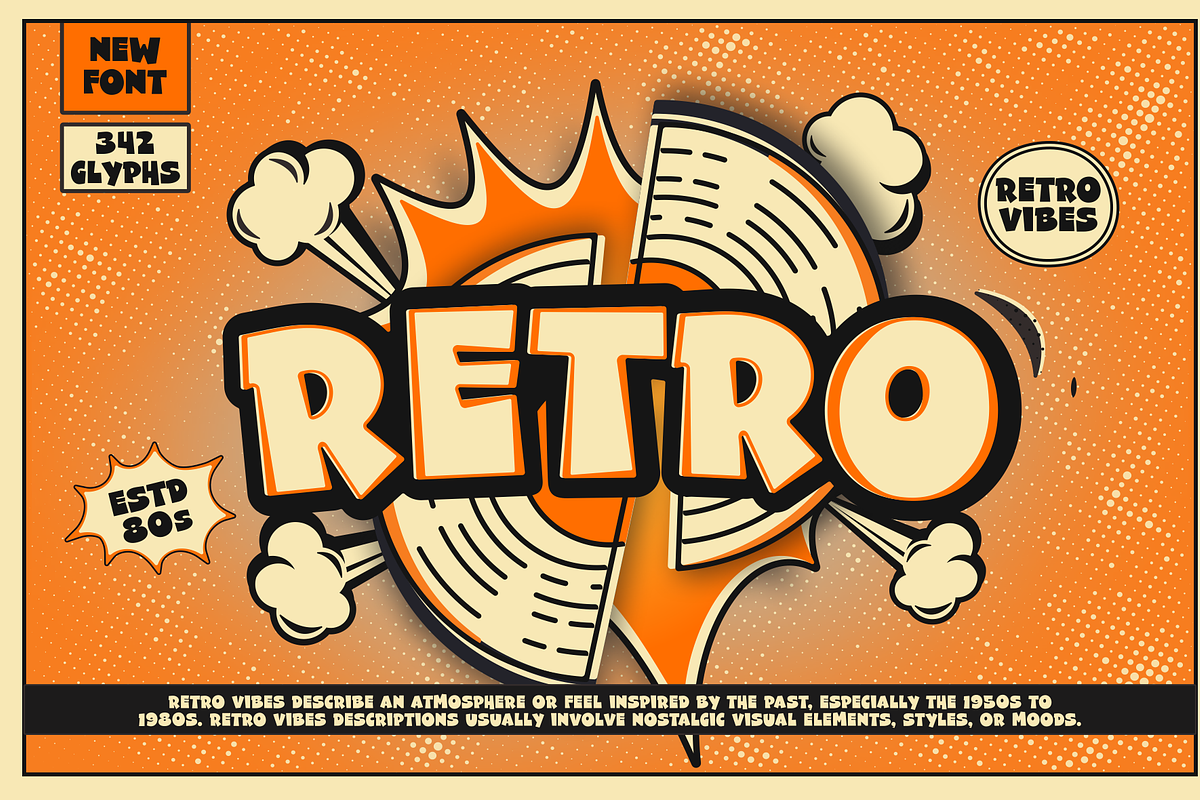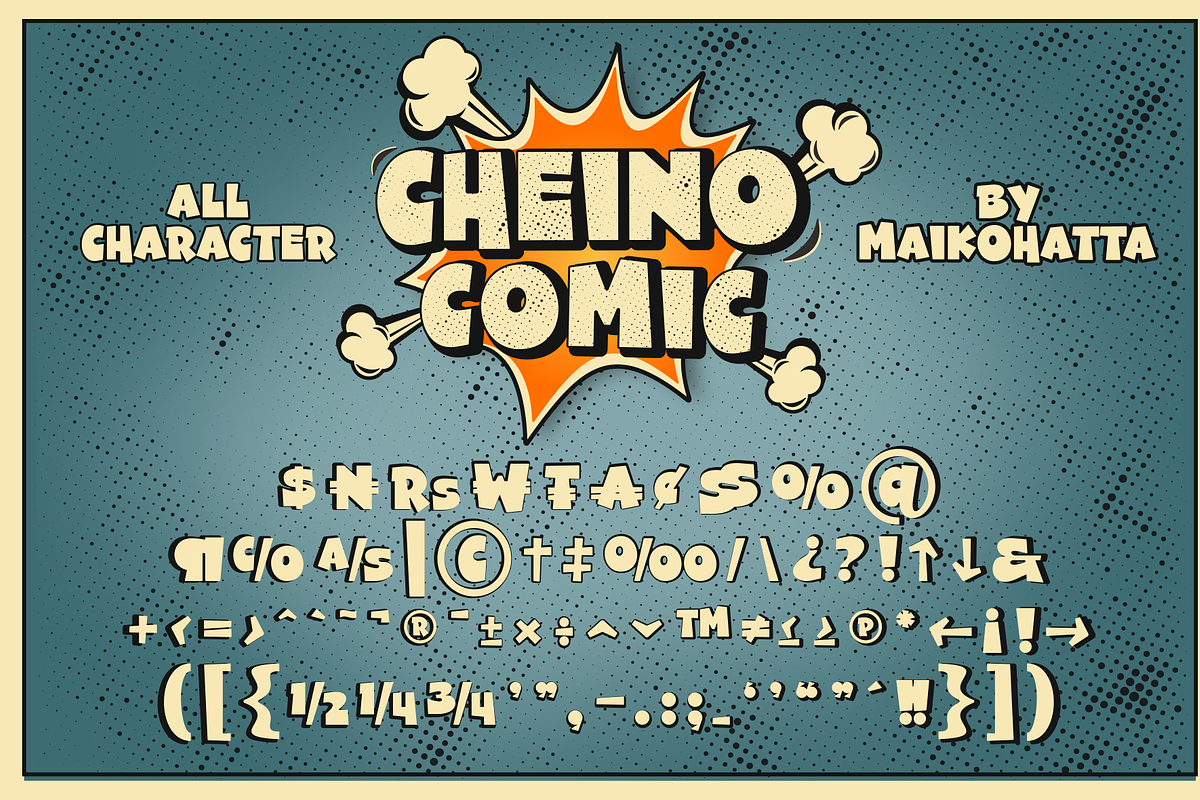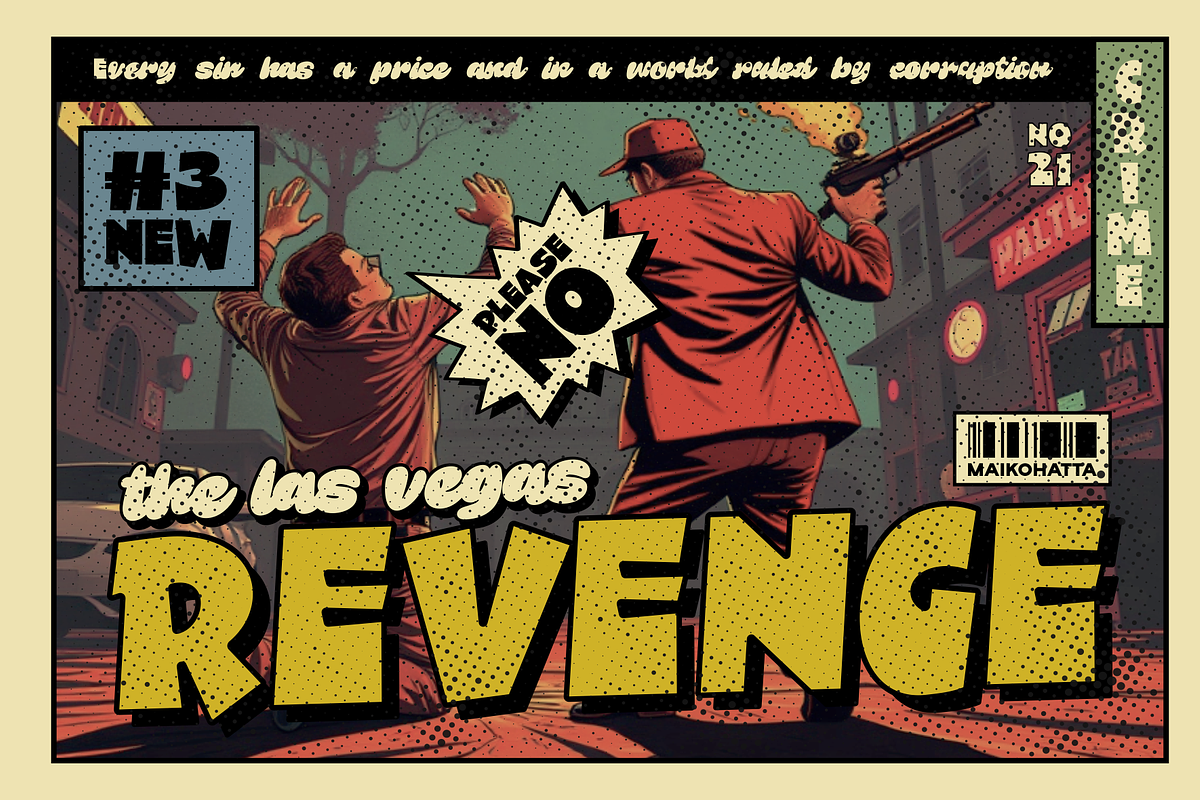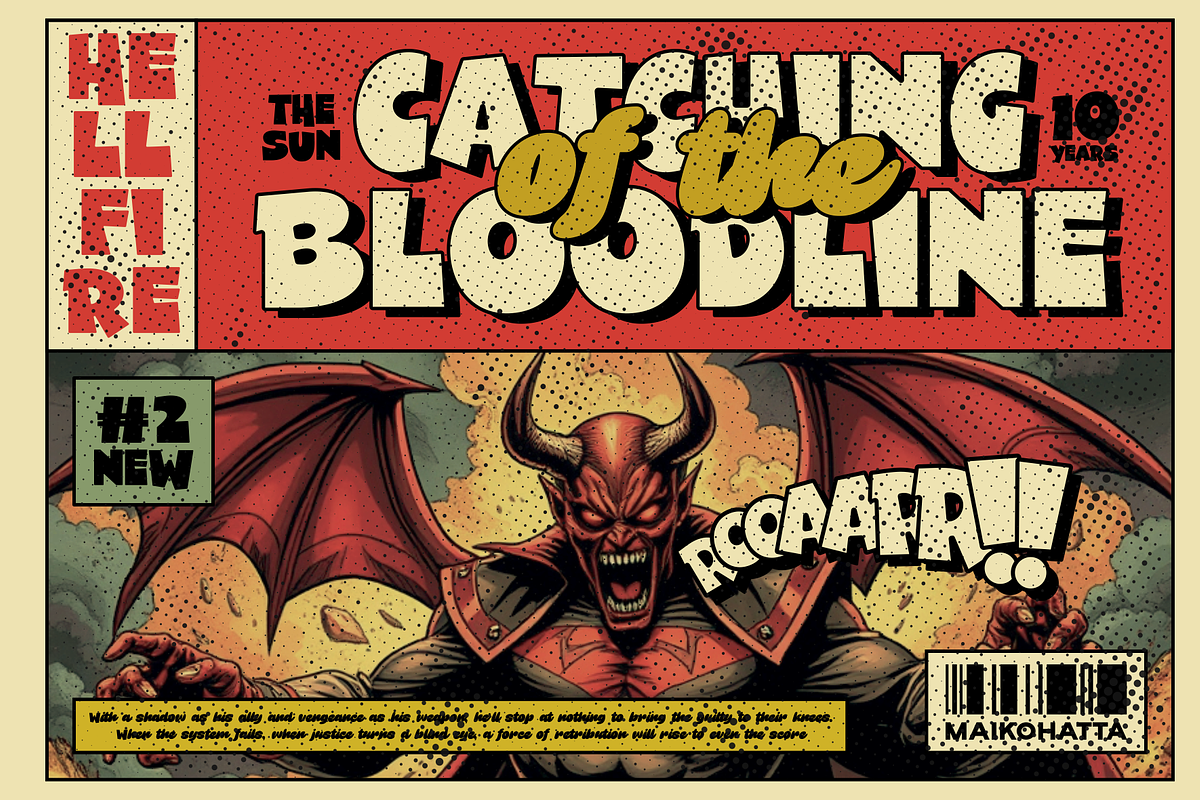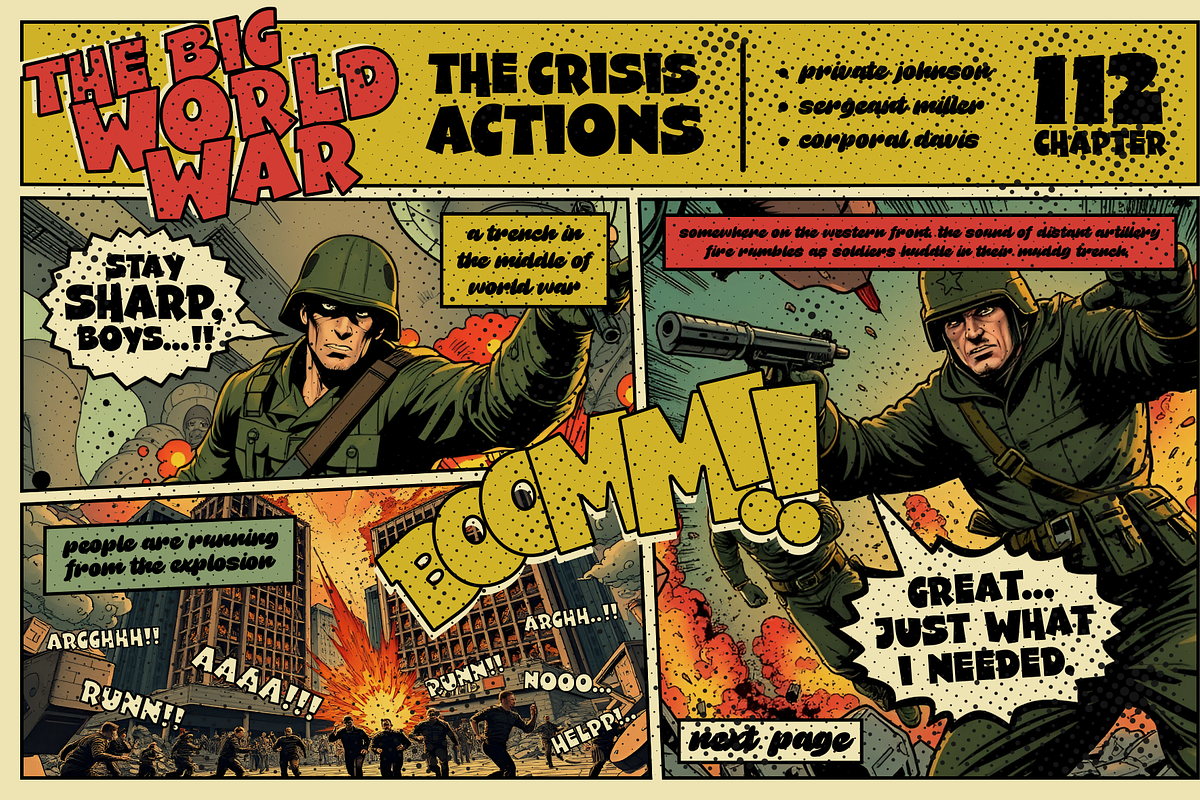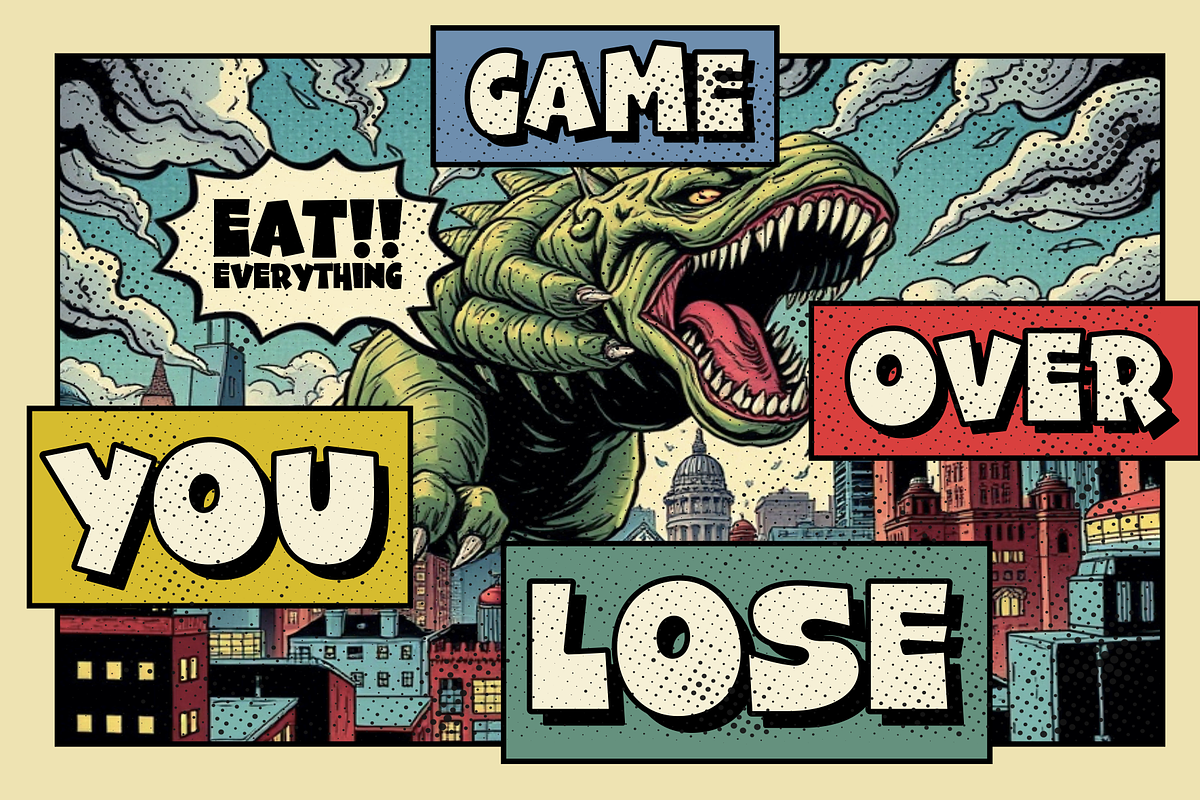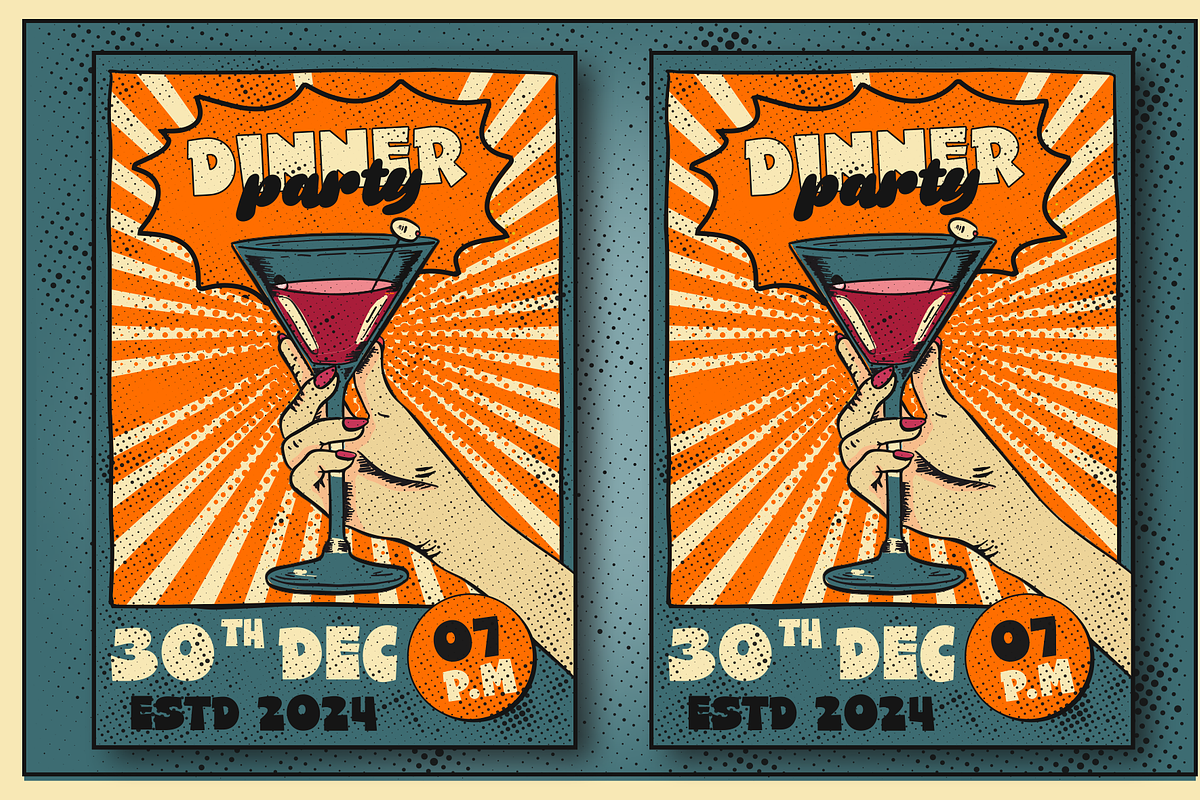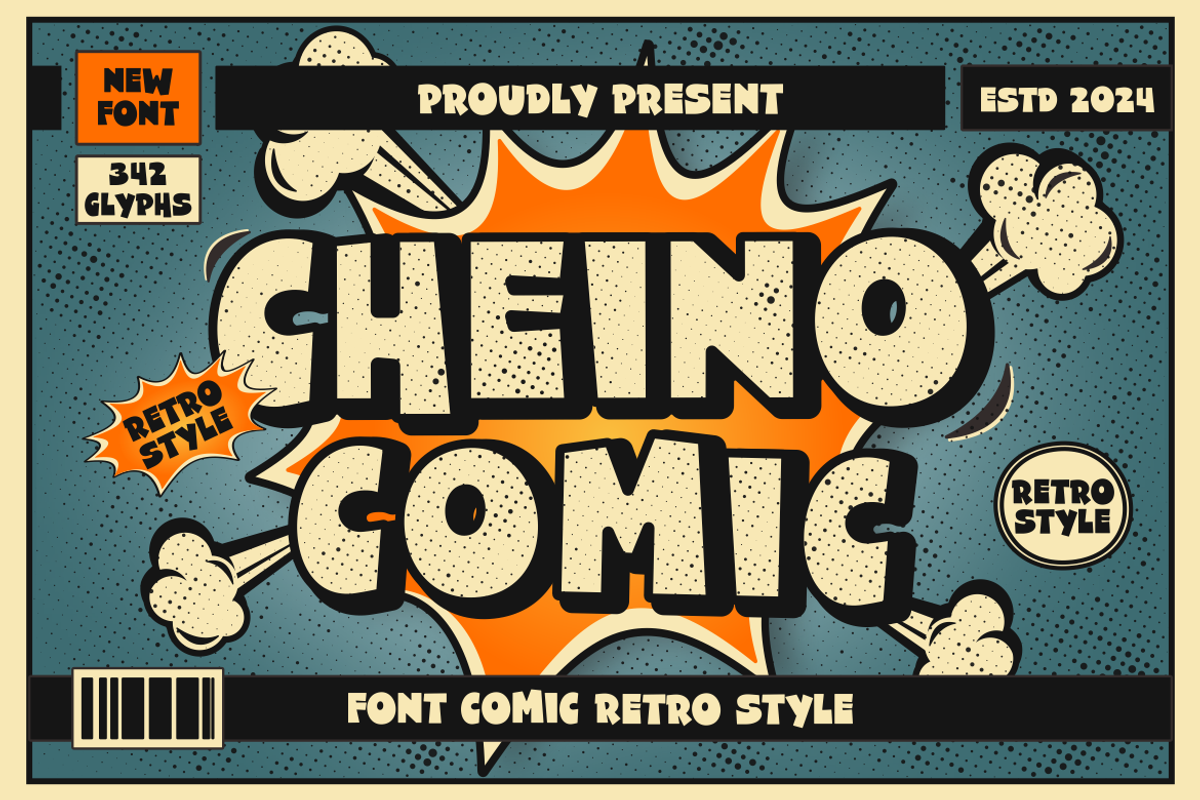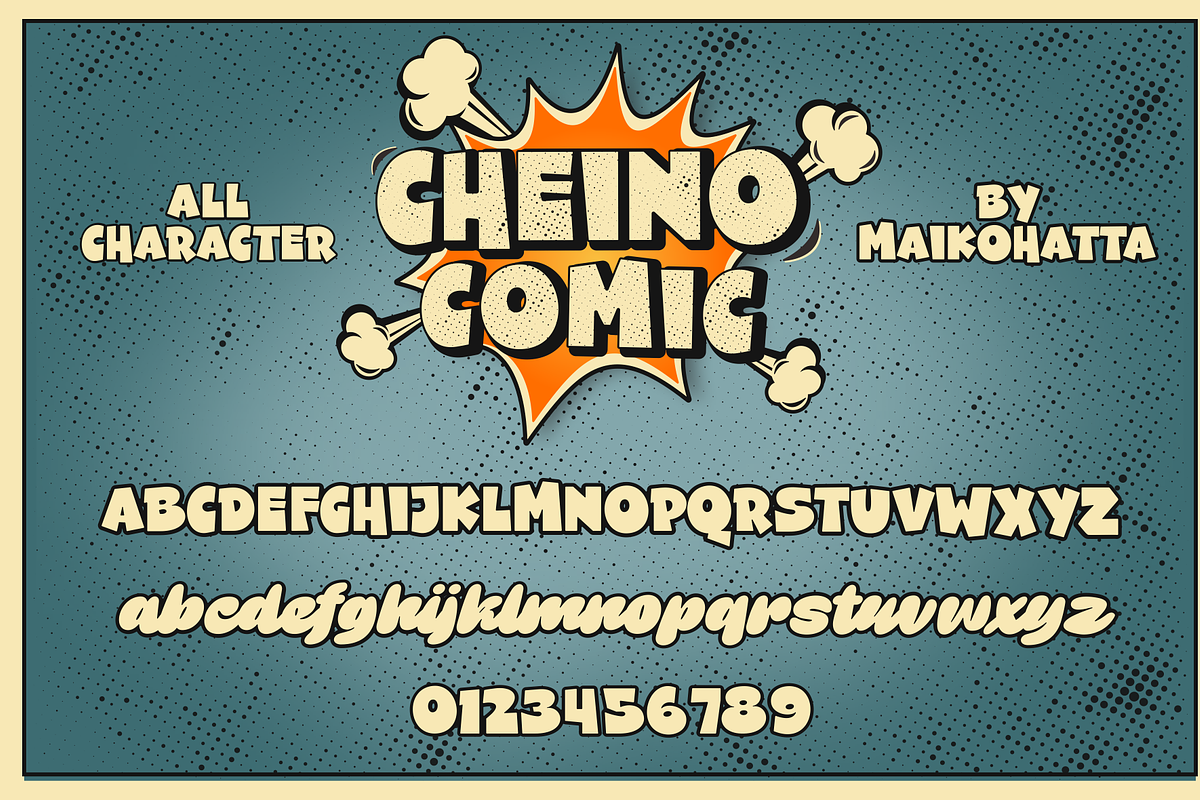
Cheino - Comic Retro Font
Introducing our new product Cheino - Comic Retro Font
This font is characterized by reflecting joy, cheerfulness and a light atmosphere with a handwritten style often found in comics or cartoons. This font is perfect for projects that want to highlight elements of playfulness and fun, such as poster designs, invitation cards, comics, or promotional materials aimed at a younger audience or those looking for a fun feel.